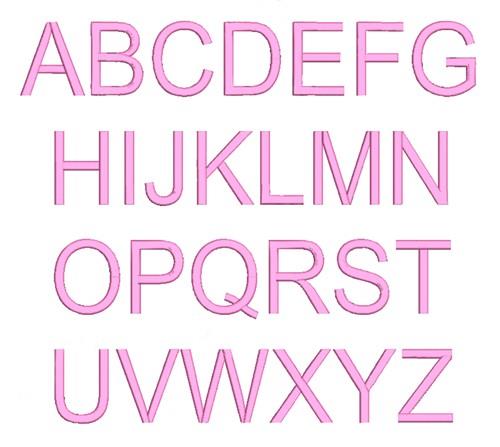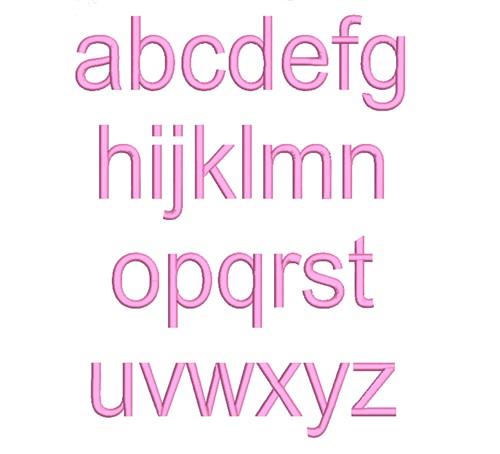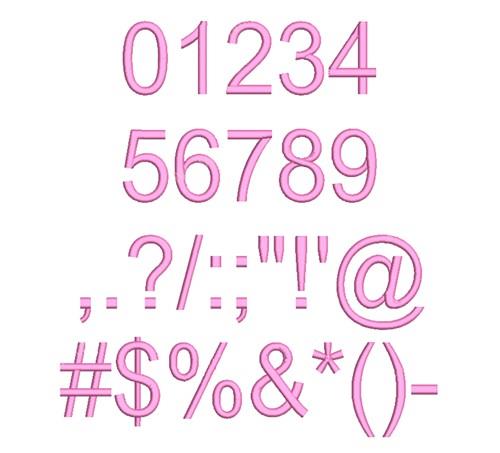
Maya Kreations is happy to present Arial Narrow Font machine embroidery font which has Classic block style machine embroidery font in light pink, suitable for personalizing home textiles like pillowcases. Compatible with Home Format, available in DST, EXP, HUS, JEF, PES, VIP, VP3, and XXX formats. included. If you would like to view more embroidery fonts and alphabets please search our embroidery fonts page.